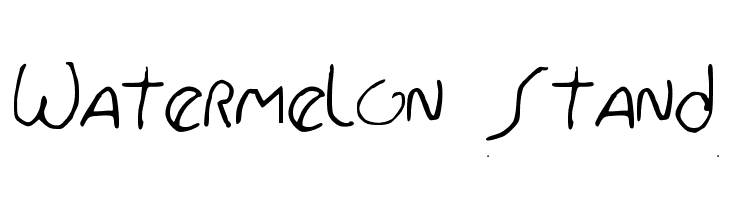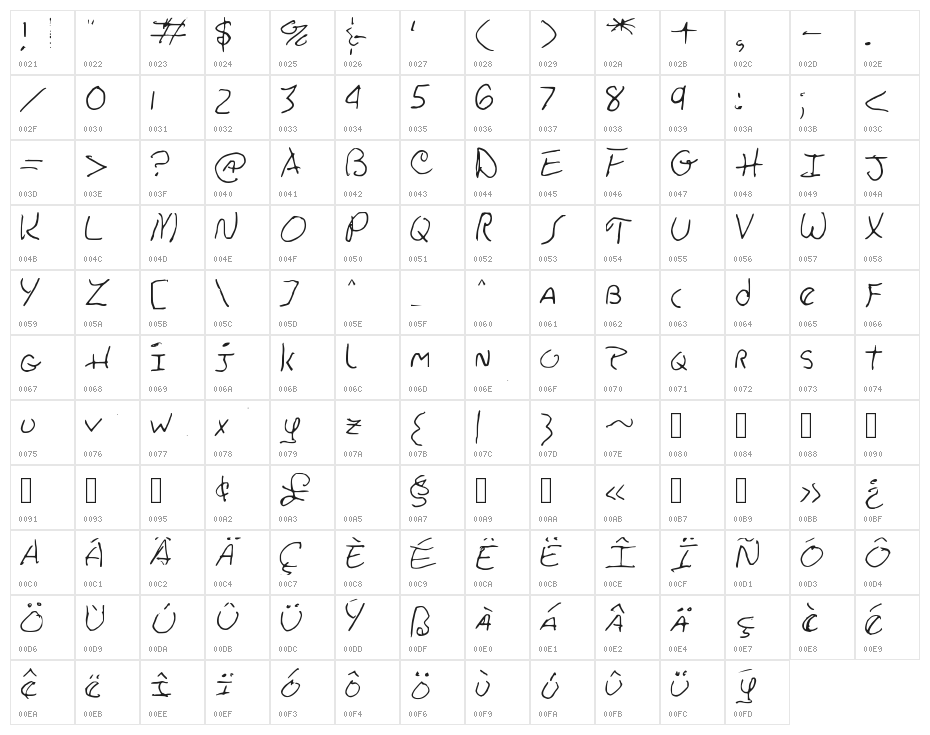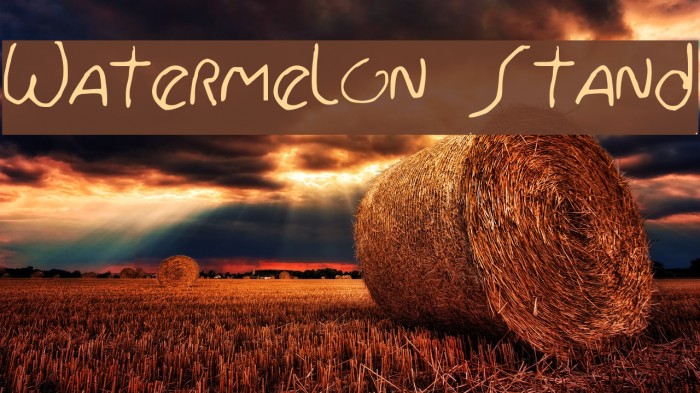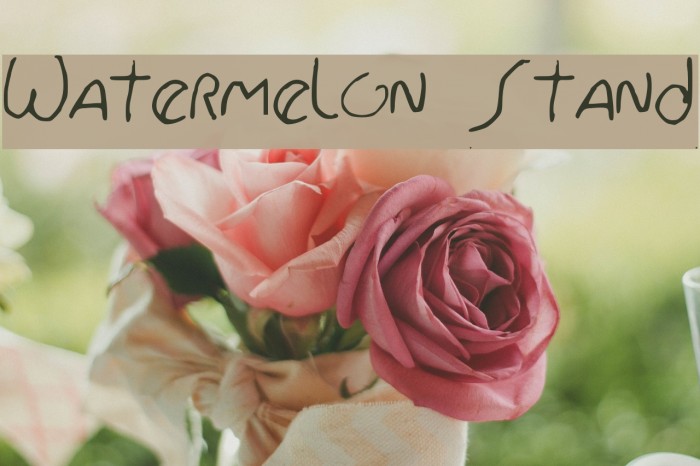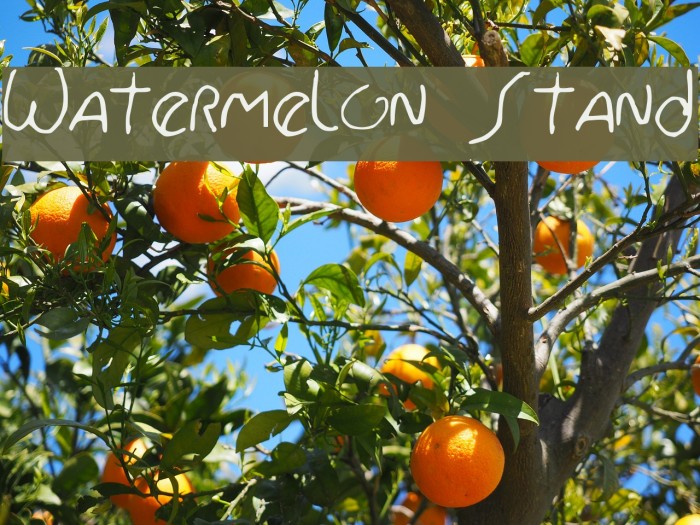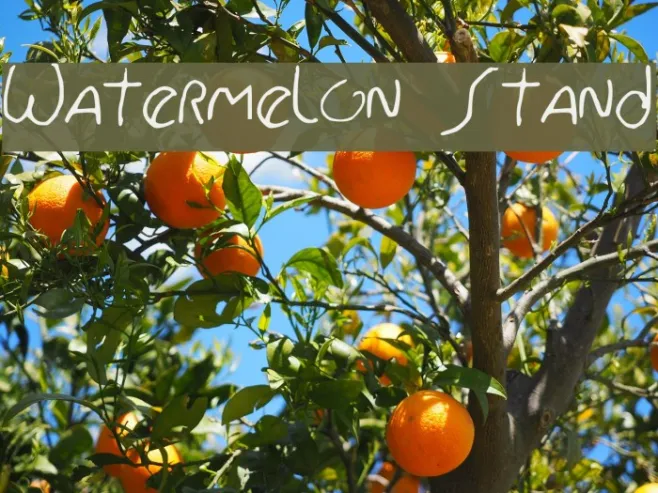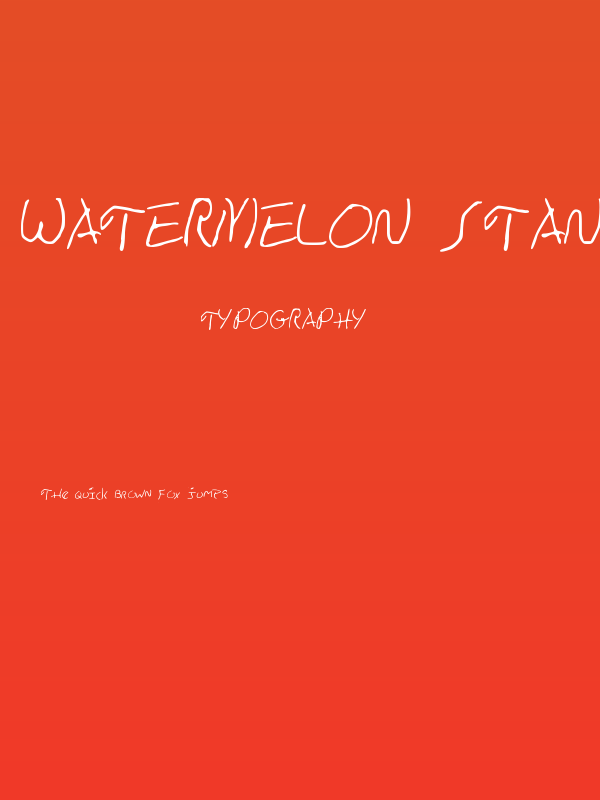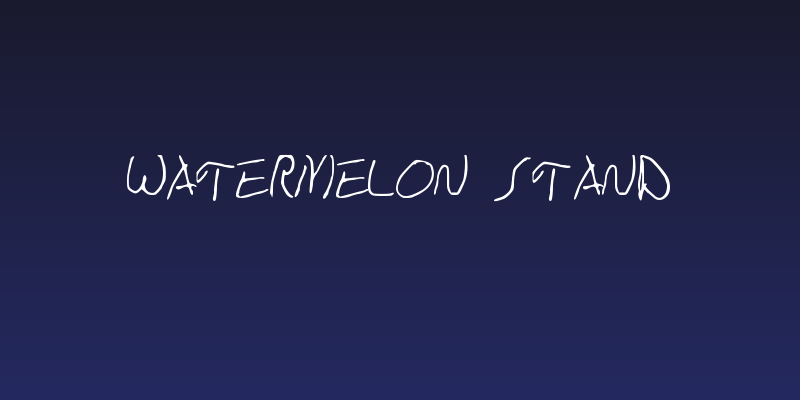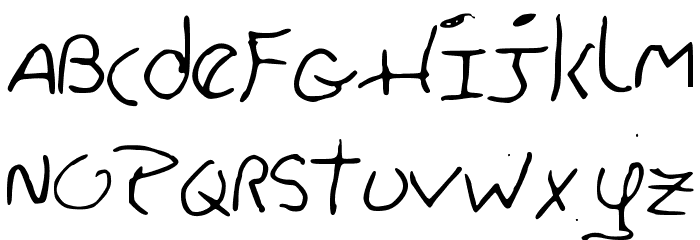
Watermelon Stand Font
Watermelon Stand Description
This font exudes a playful and casual handwritten style, characterized by its irregular strokes and organic flow. The letters have a natural, slightly messy appearance, reminiscent of quick, informal handwriting. The uppercase and lowercase letters maintain a consistent style, with some letters featuring unique flourishes and loops that add to its charm. The numbers and special characters follow the same whimsical design, making the font cohesive and visually engaging. Its informal nature makes it ideal for projects that require a personal touch or a relaxed vibe.
| Use Case | Logos, Invitations, Personal notes |
| Proposed Projects | Ideal for greeting cards, personal notes, children's books, and informal branding. |